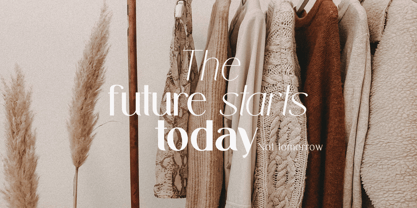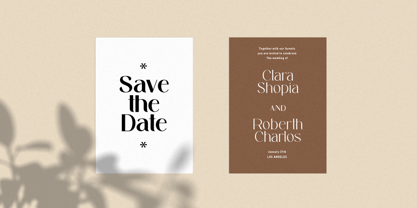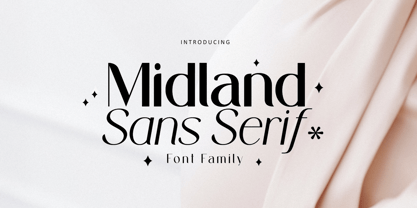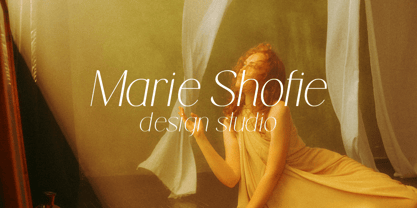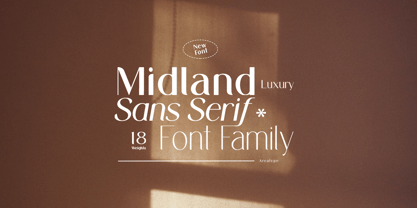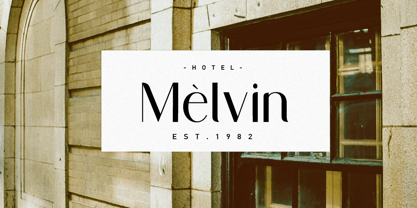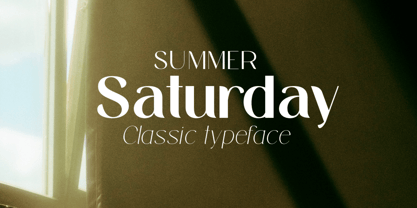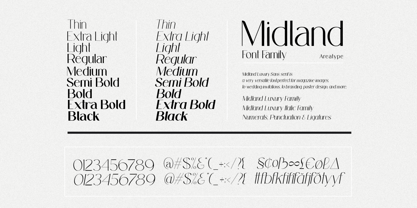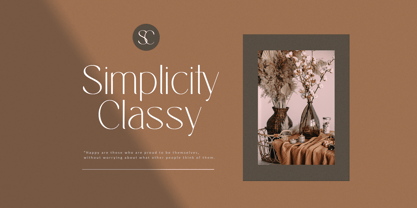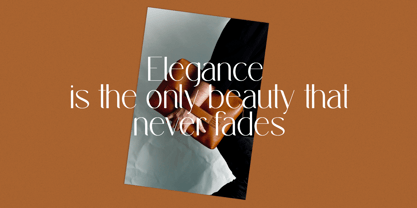
Midland Luxury
by Areatype
The Midland Luxury Font Family was designed by Ambia and published by Areatype. Midland Luxury contains 18 styles and family package options.
Midland Luxury Sans serif is a very versatile font.perfect for magazine images, to wedding invitations, to branding, poster design, and more.
Numerals, Punctuation & Ligatures